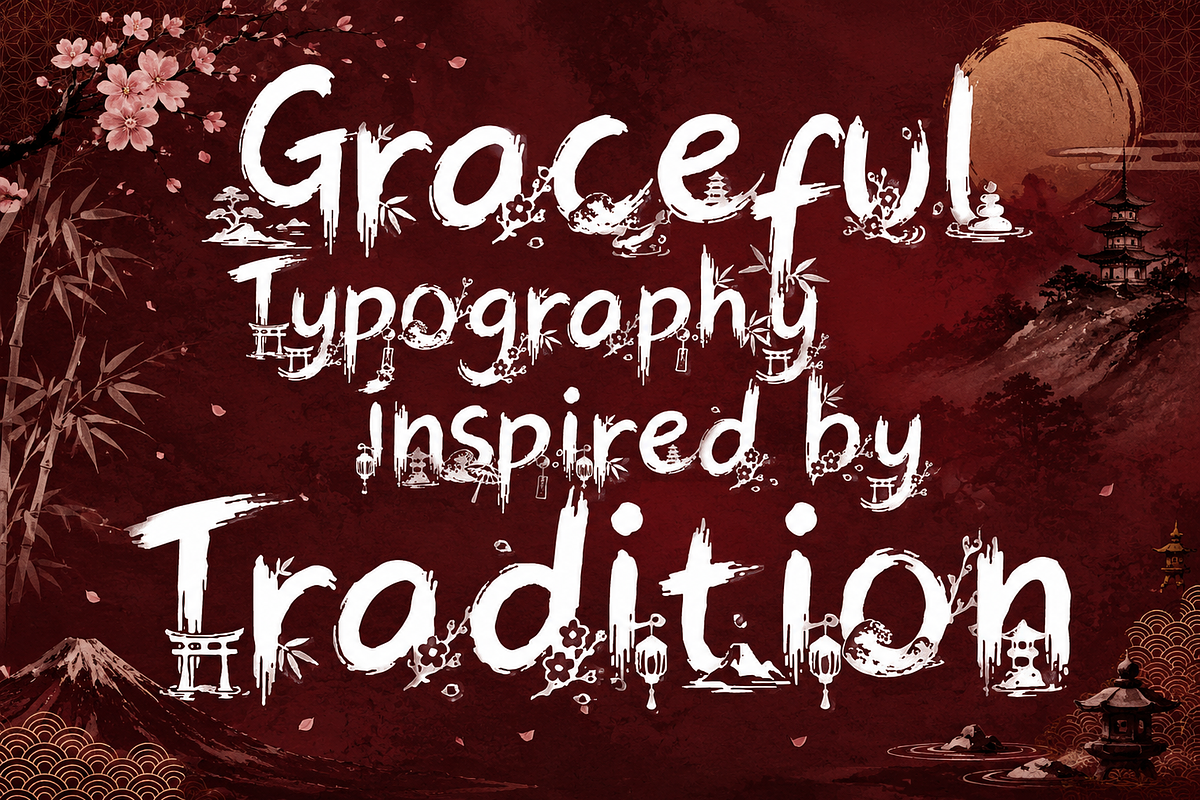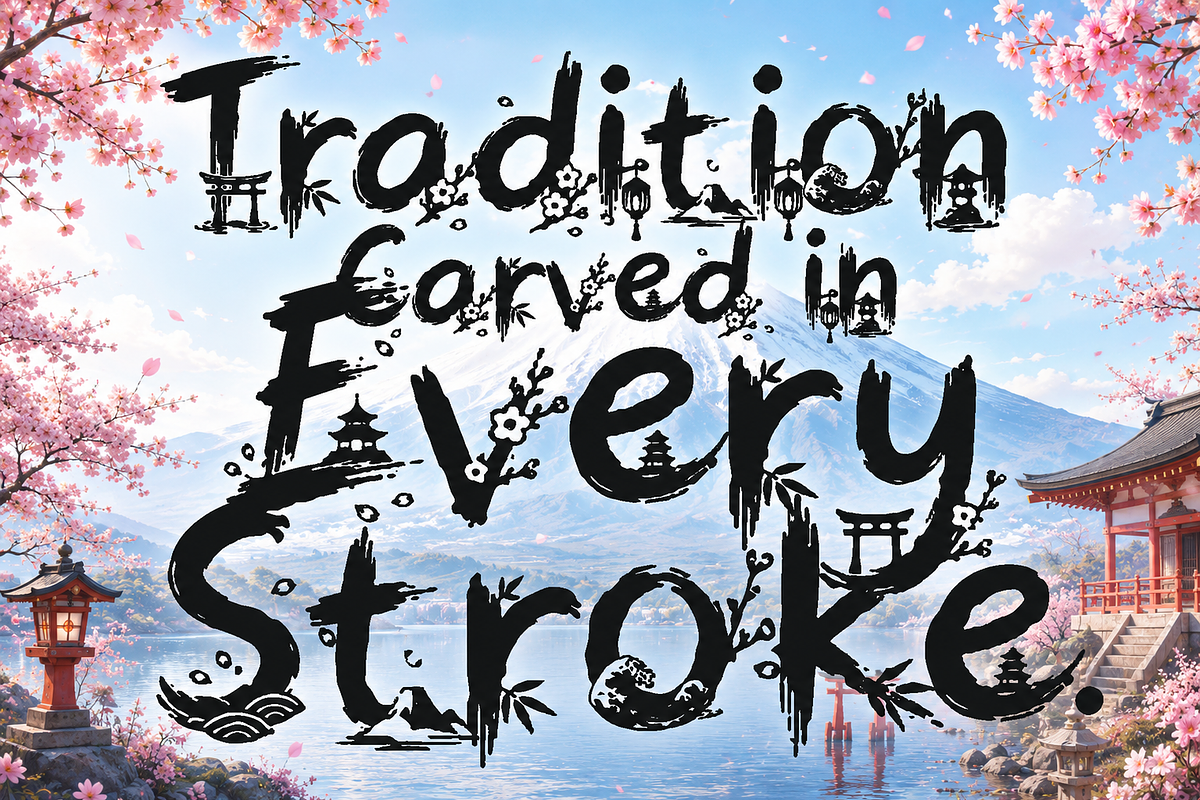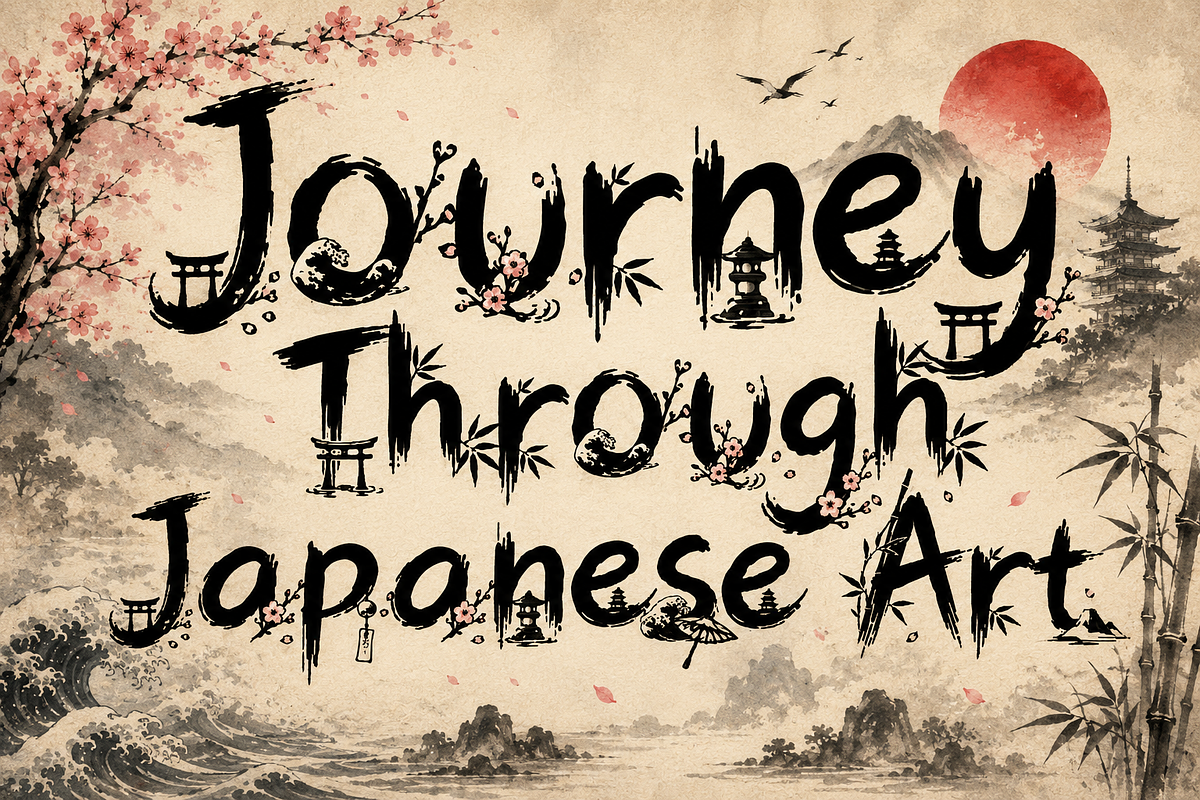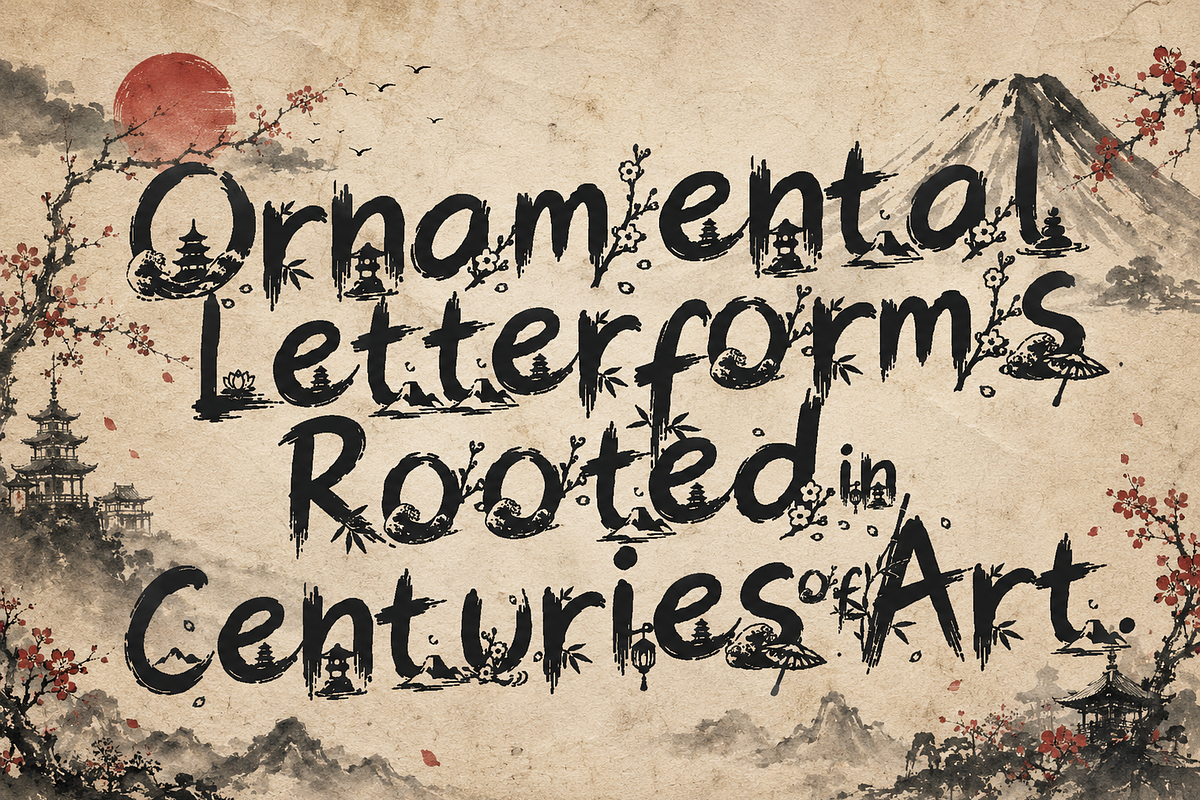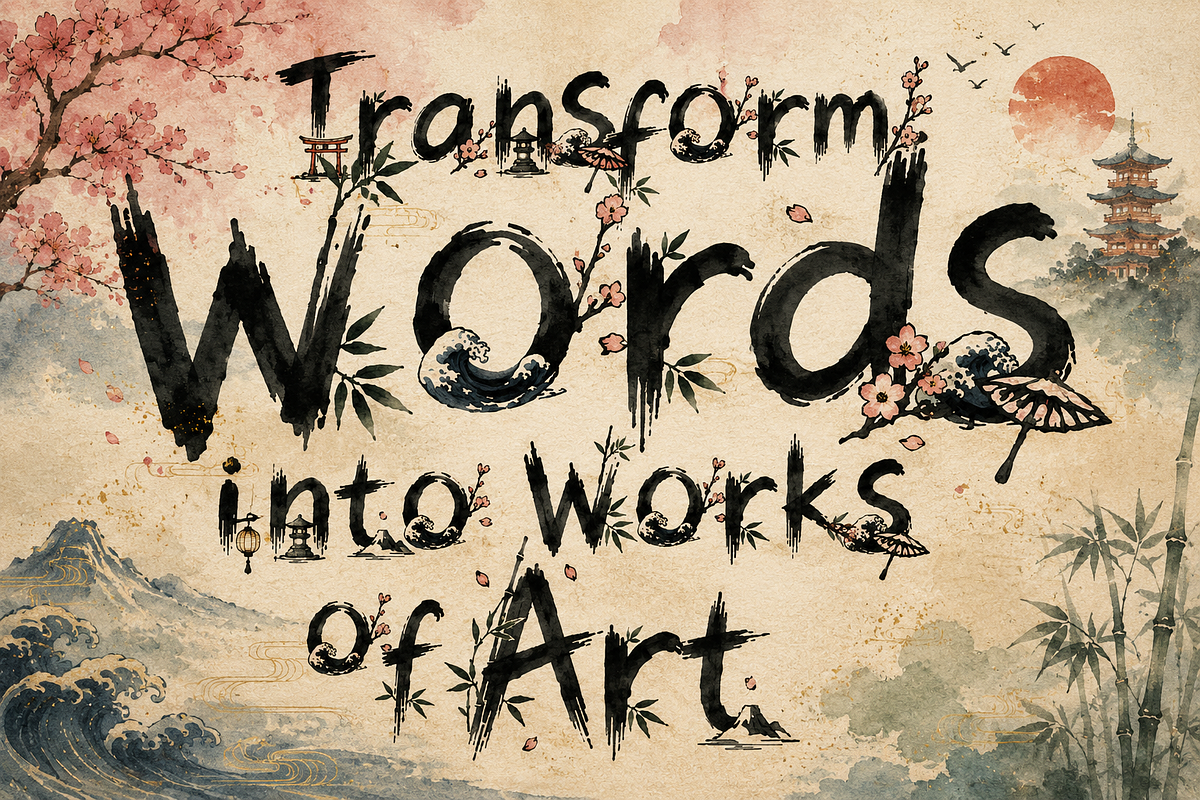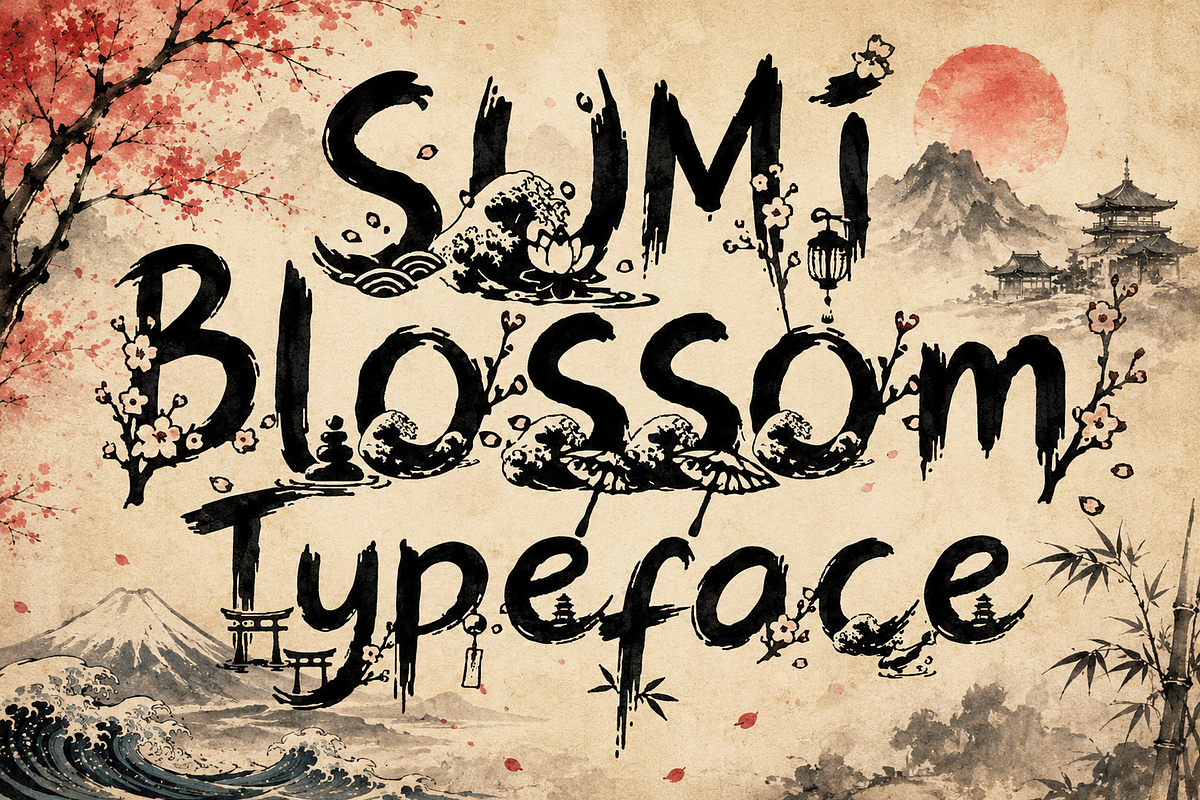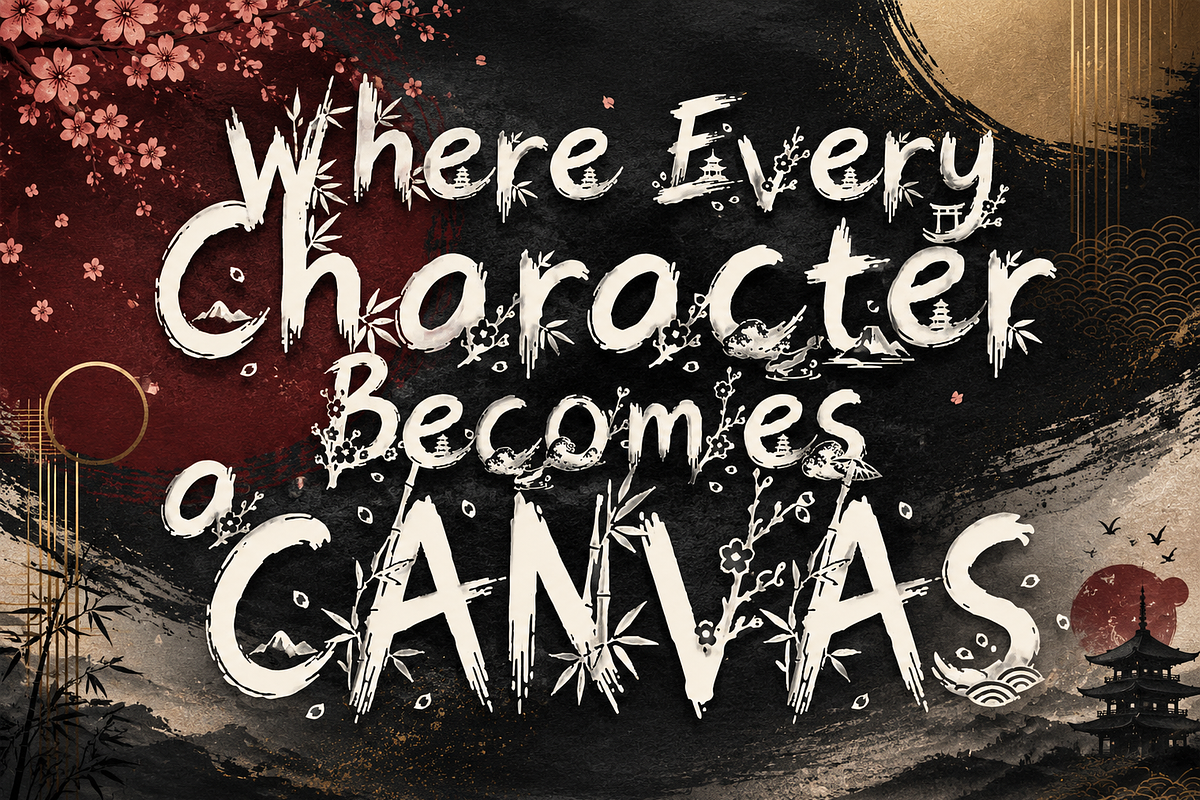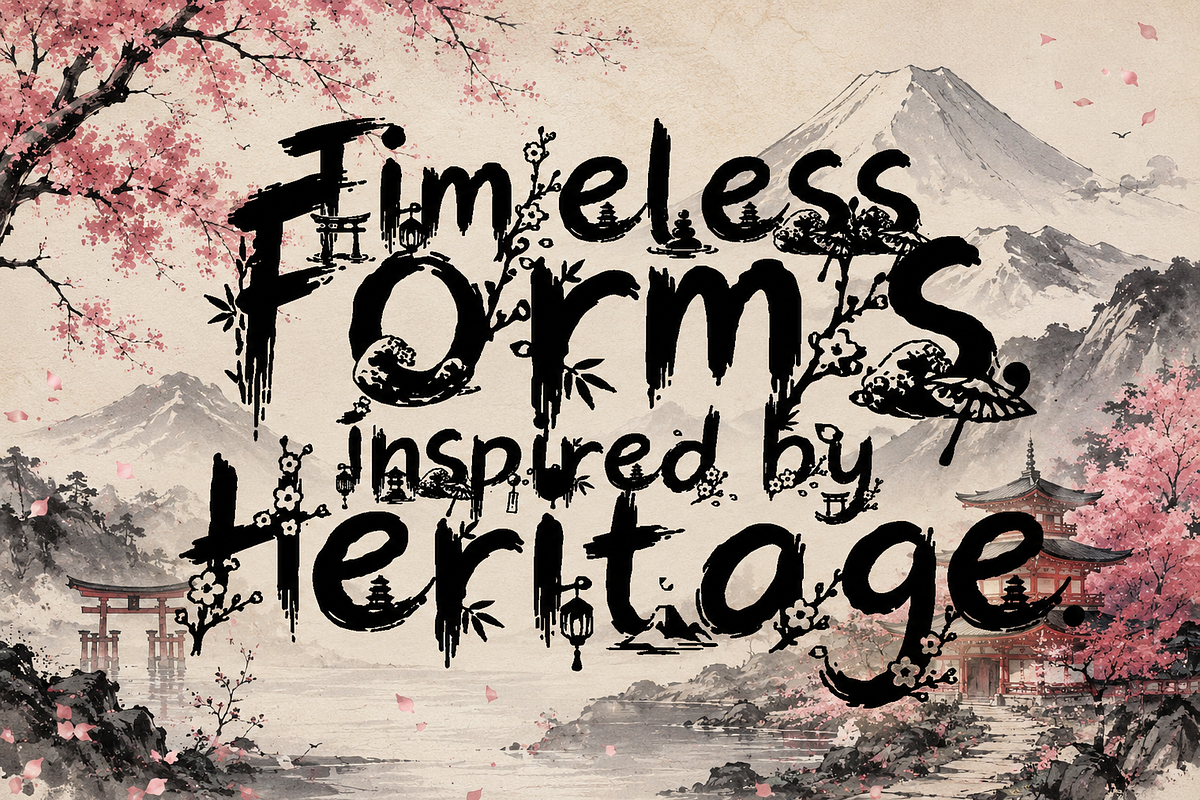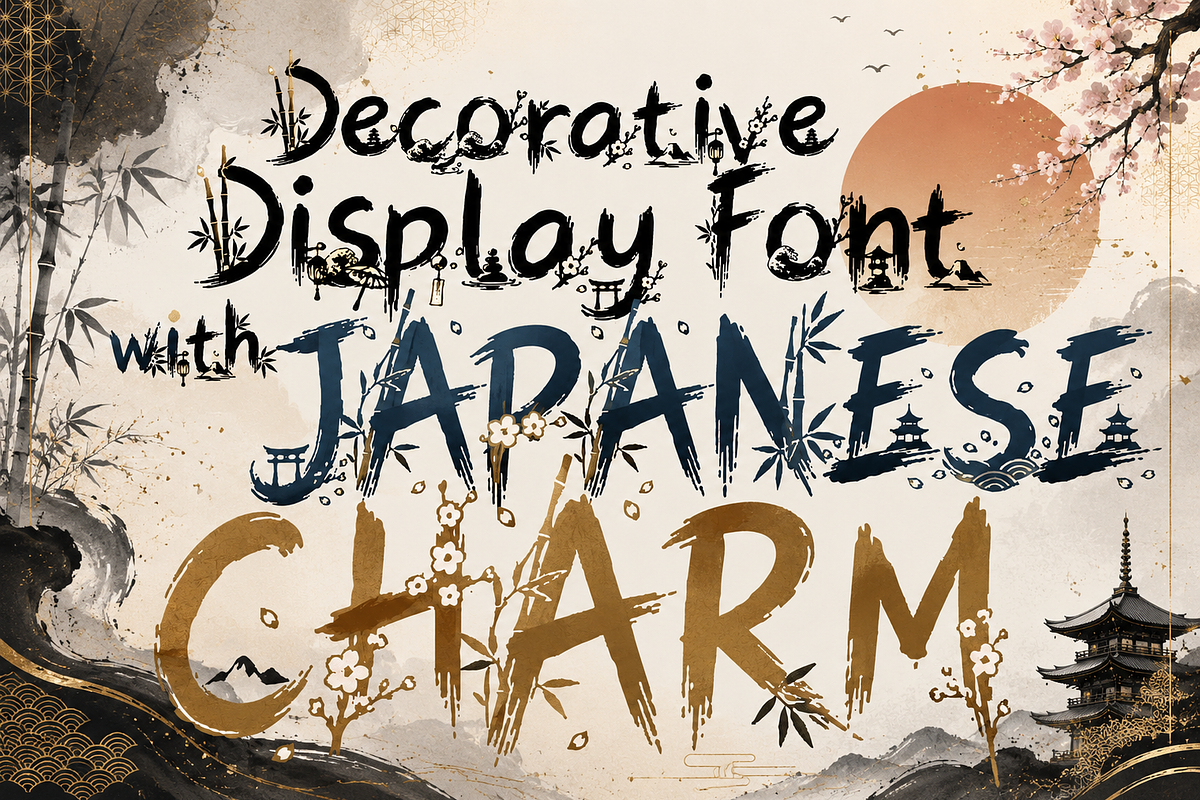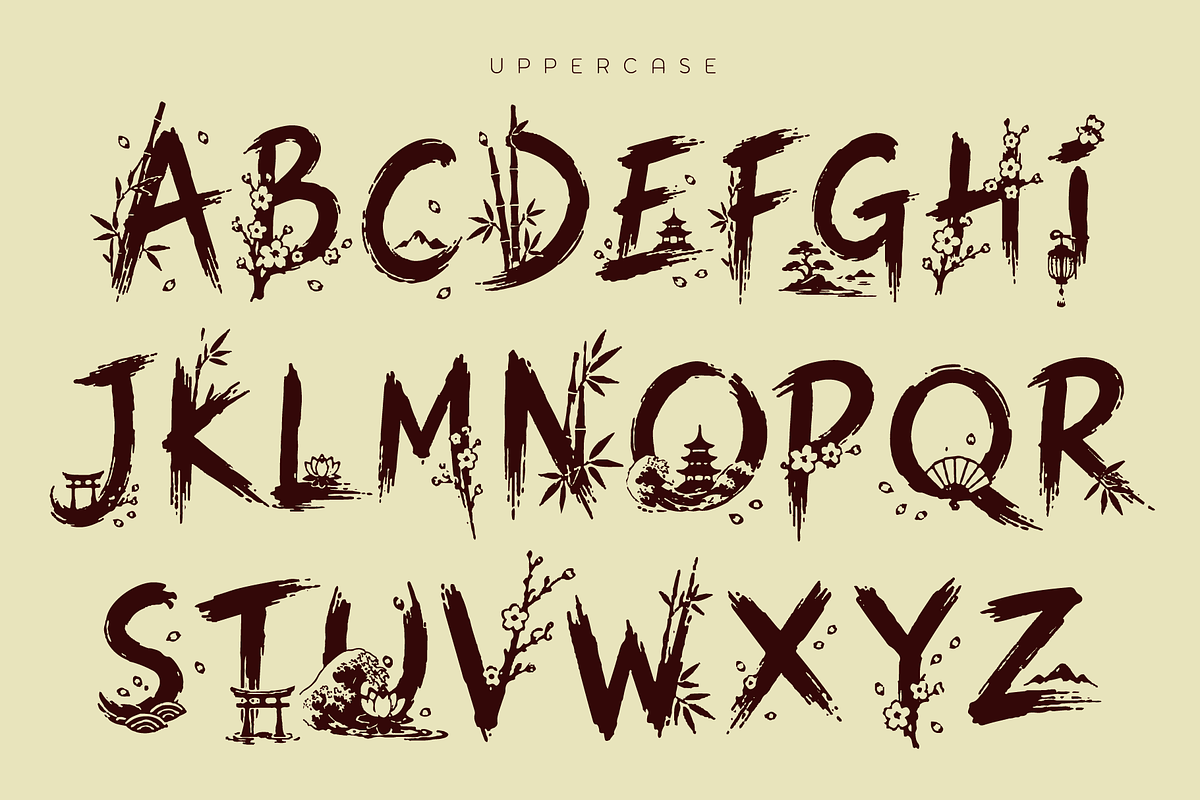
SumiBlossom - Japanese Art Font
Sumi Blossom – Japanese Art Display Font
Inspired by the timeless beauty of traditional Japanese ink paintings, Sumi Blossom is an artistic display font that blends expressive typography with elegant oriental ornamentation. Each glyph is thoughtfully decorated with Japanese-inspired elements, creating a unique typeface that evokes the atmosphere of sumi-e brush art, cherry blossoms, bamboo, waves, clouds, and classic Japanese aesthetics.
Designed for creatives who want to bring an authentic Eastern artistic touch to their work, Sumi Blossom is perfect for branding, restaurant logos, Japanese food packaging, apparel, posters, album covers, book covers, stationery, social media, and cultural event promotions.
The decorative details make every letter feel like a handcrafted work of art while maintaining excellent readability for headlines and display use.